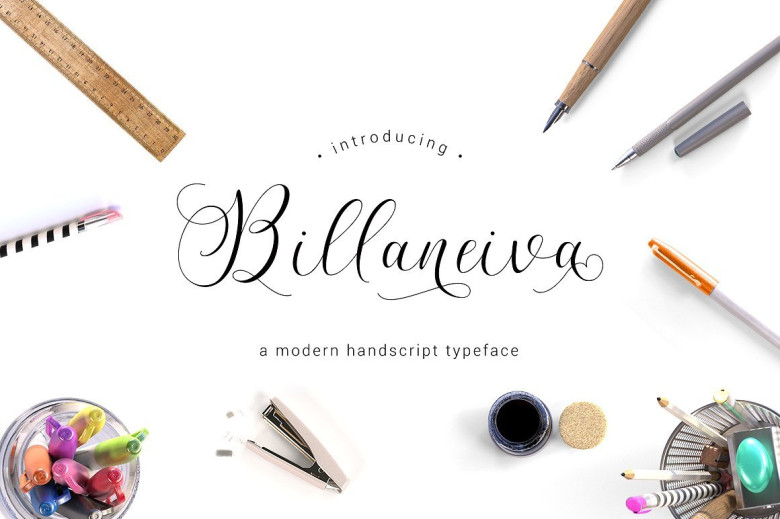
Billaneiva Script Font
A modern handscript typeface. The irregular, hand-lettered look adds a real human touch to things and comes along with a lot of loving details. Introducing Billaneiva Font. Billaneiva typeface – simple and easy to create awesome lettering, just type your words and then you will immediately see the great results. Billaneiva will work perfectly for fashion, e-commerce brands, trend blogs, wedding boutiques or any business that wants to appear upscale and chic.